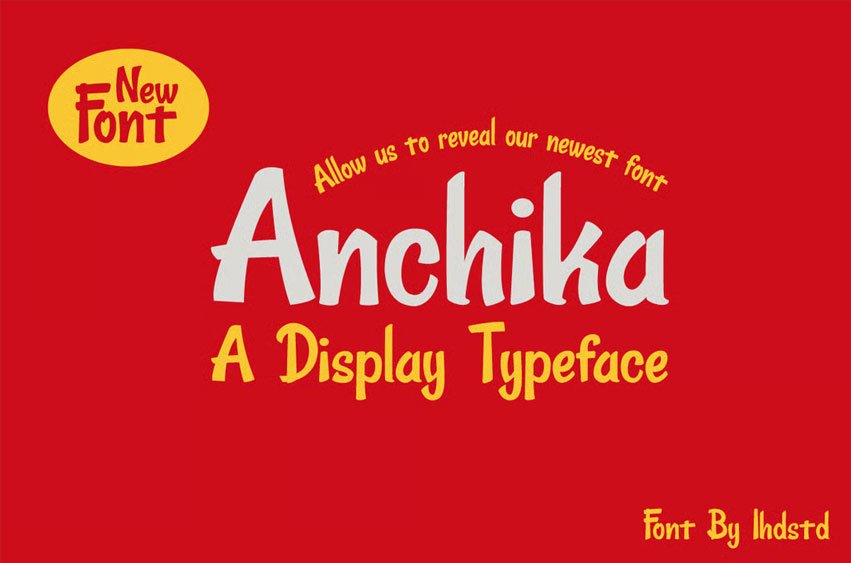
Anchika Typeface Font
Anchika Typeface Fontis a display typeface for poster, brand, text.
Every letter has a unique and beautiful touch, which will make your design come alive!